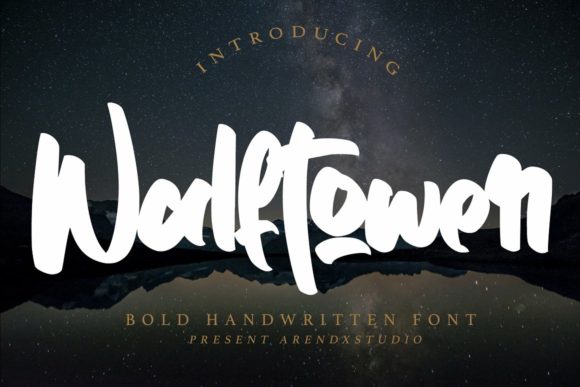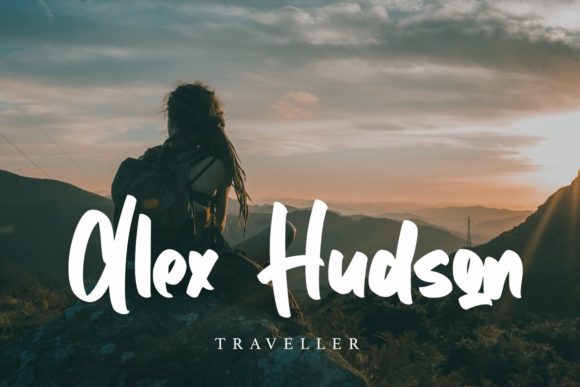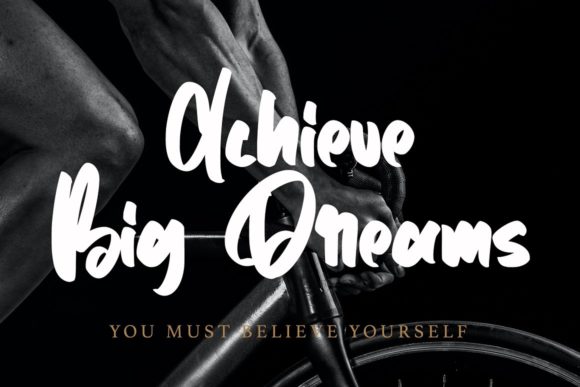
About Walftower Font
Walftower is a bold and thick lettered handwritten font. It is defined by smooth curves and is perfect for fashion branding or editorial designs. Add it confidently to your projects, and you won’t be disappointed.